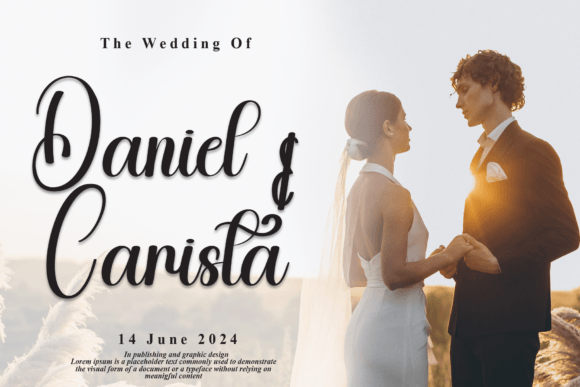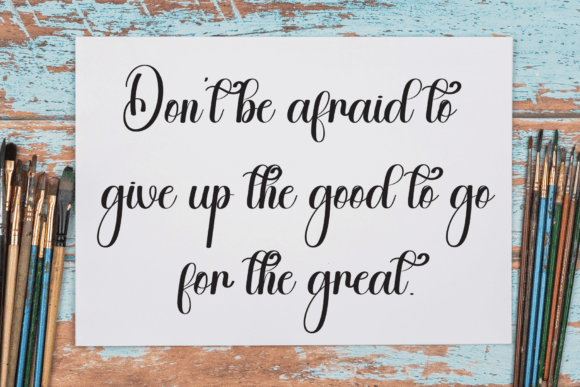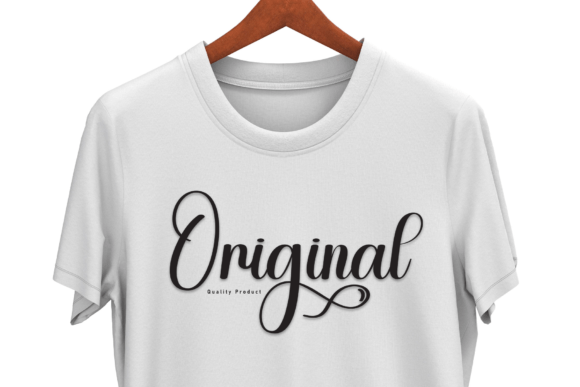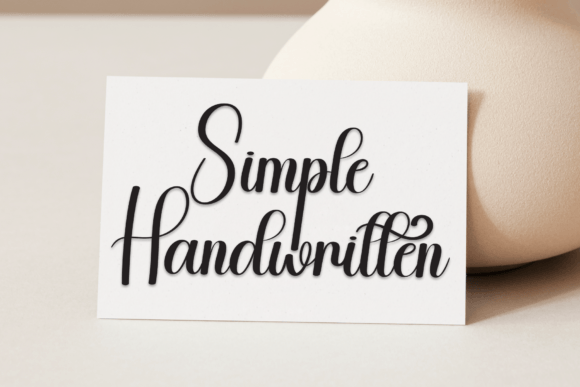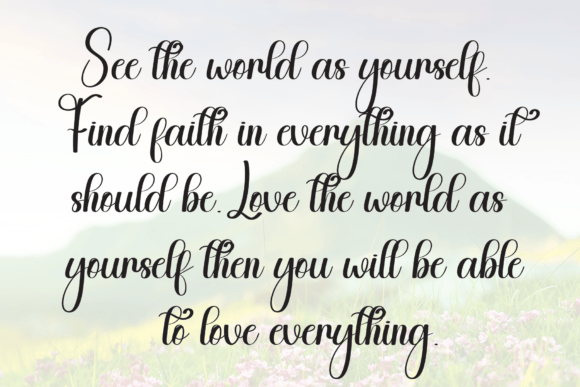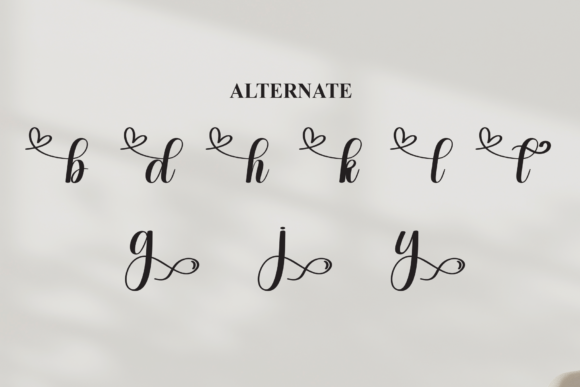
Meet Angela: The Charming Handcrafted Display Font
In the world of typography, fonts play a crucial role in conveying the tone and personality of a design. For those seeking a typeface that exudes warmth, playfulness, and whimsy, look no further than Angela, a delightful handcrafted display font. With its irresistibly friendly aura, Angela is poised to become your go-to choice for crafting wedding invitations, cards, and various design projects that require a dash of merriment and charm.
The Story Behind Angela
Angela is more than just a font; it’s a characterful addition to your creative toolkit, designed to breathe life into any project. Its creator aimed to craft a typeface that not only stands out but also speaks to the heart. With Angela, you can infuse your designs with a sense of joy and delight, making it perfect for projects that call for a personal touch. Whether you’re a designer, crafter, or DIY enthusiast, Angela promises to bring a smile to your face and your audience’s.
Key Features of Angela
- Handcrafted with Love: Every letter in Angela is meticulously crafted to ensure a personal and unique feel, setting it apart from generic fonts.
- Delightful Quirks and Amusements: Angela is oozing with charming quirks and playful elements that add a whimsical touch to your designs.
- Playful and Friendly Aura: The font’s design exudes a warm and inviting vibe, making it perfect for projects that require a friendly tone.
- Versatile Use: While Angela shines in wedding invitations and cards, its versatility means it can be used in a wide range of design projects, from branding to packaging.
Why Choose Angela for Your Designs?
Choosing a font for your design project can be overwhelming, given the numerous options available. However, Angela stands out for several reasons:
- Unique Personality: In a sea of similar fonts, Angela’s unique character and charm make it a standout choice.
- Emotional Connection: Fonts have the power to evoke emotions. Angela’s friendly and playful nature helps create an instant connection with your audience.
- Enhances Creativity: With Angela, you can explore a myriad of design possibilities, from elegant wedding invitations to playful brand logos.
- Easy to Read and Aesthetic: Despite its decorative nature, Angela remains highly legible, ensuring your message is conveyed clearly and with style.
Using Angela in Your Projects
Incorporating Angela into your designs is straightforward. Here are a few tips to get you started:
- Pair with Complementary Fonts: For maximum impact, pair Angela with simpler fonts to create a balanced and harmonious design.
- Experiment with Colors: Angela looks stunning in a variety of colors. Don’t be afraid to experiment and find the perfect hue that matches your project’s theme.
- Play with Sizes: To add emphasis, play with the size of the text. Larger sizes can make a bold statement, while smaller sizes can add a subtle touch of elegance.
Angela is more than just a handcrafted display font; it’s a gateway to creating designs that speak directly to the heart. Its unique blend of playfulness, charm, and elegance makes it an indispensable tool for designers and crafters alike. Whether you’re looking to create memorable wedding invitations, charming cards, or any design that requires a personal touch, Angela is your perfect companion. Embrace Angela in your creative journey and watch your designs come to life with joy and whimsy.